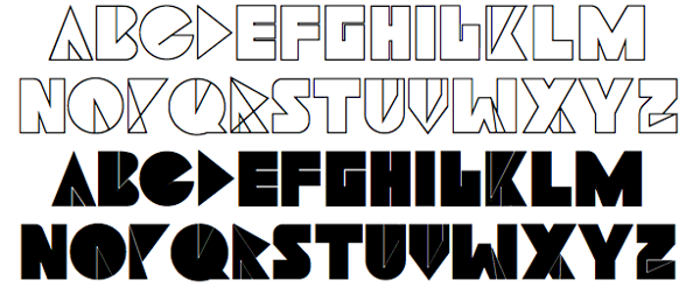
Navia Type Font
Navia Type is designed to communicate modernism with the sharp edges that evoke contemporary style. This font is ideal for titles, portfolios and logos.